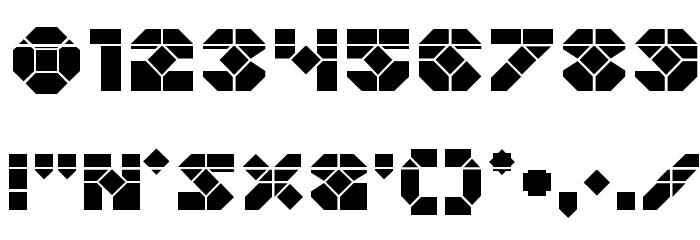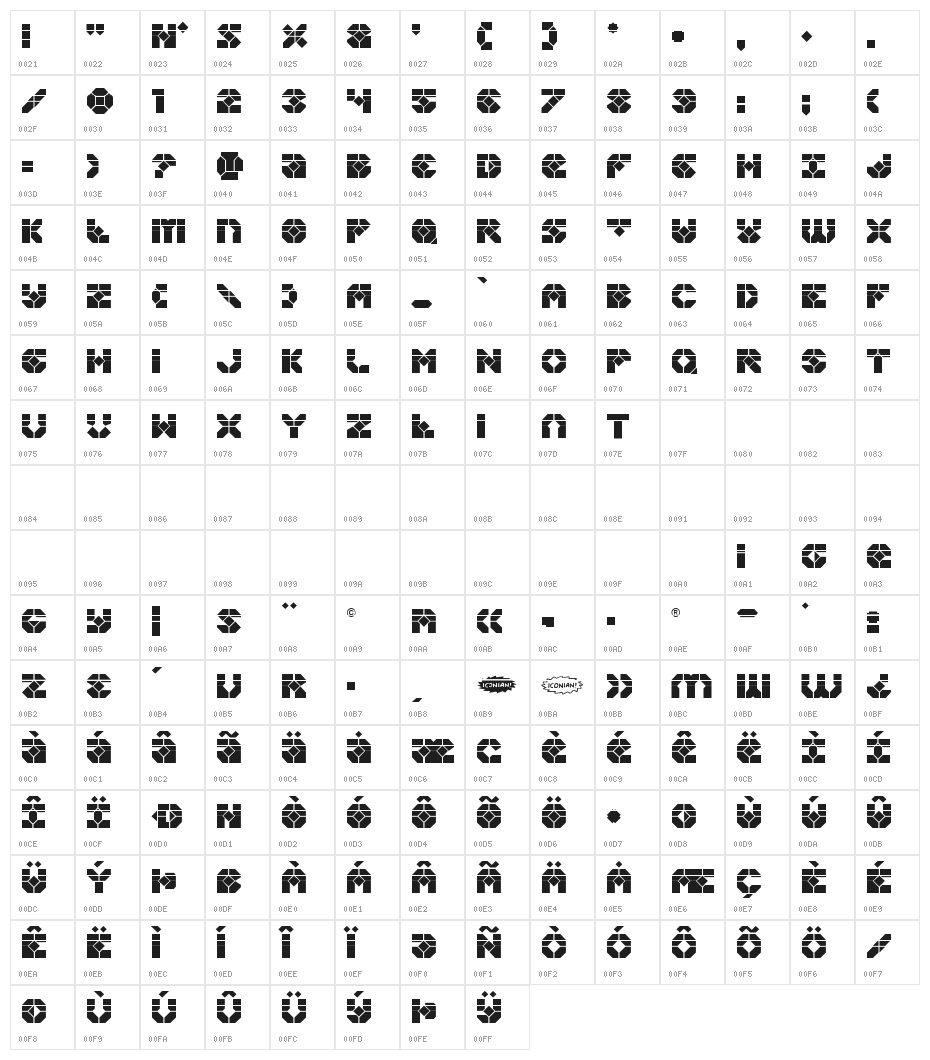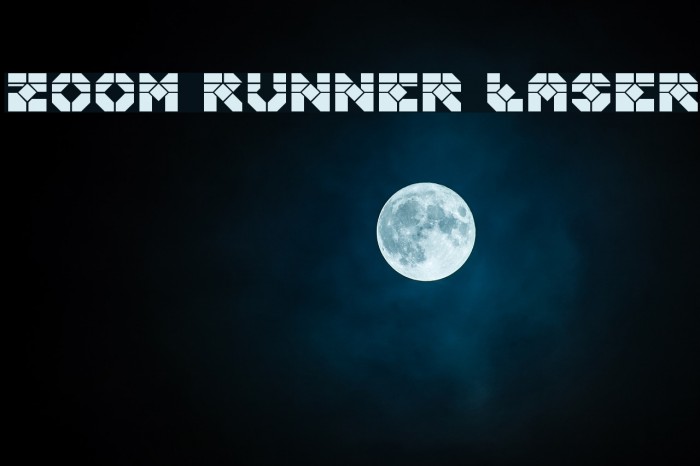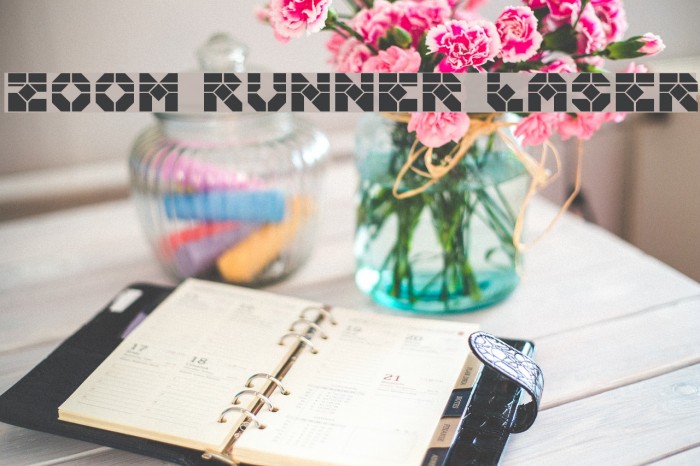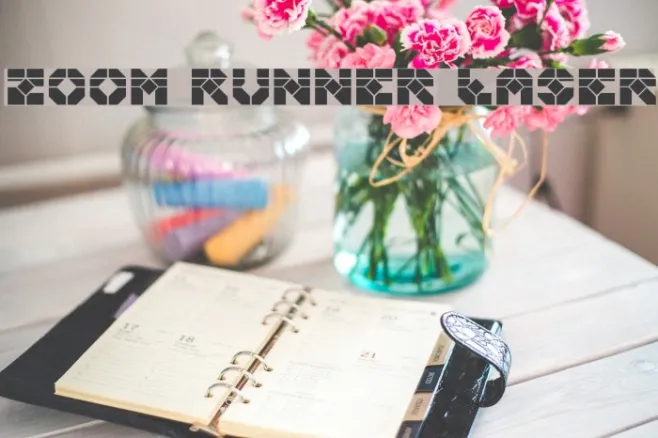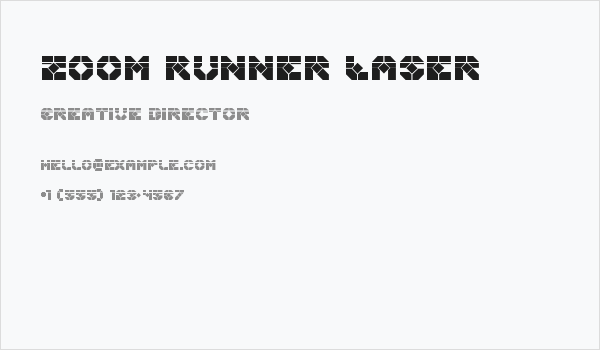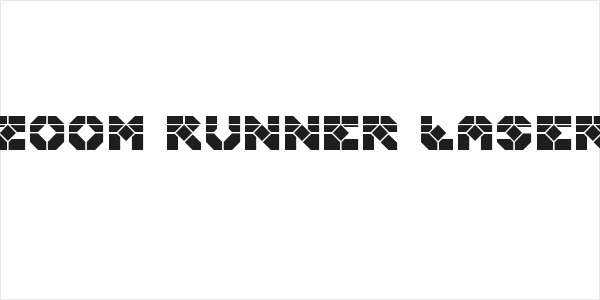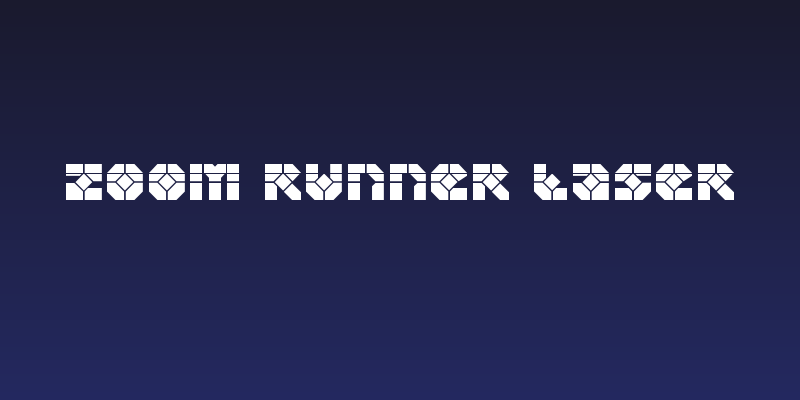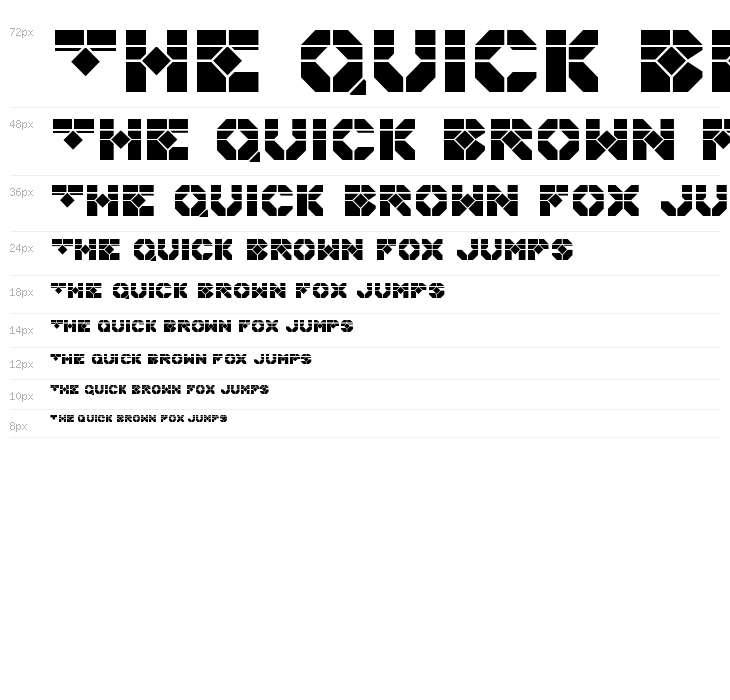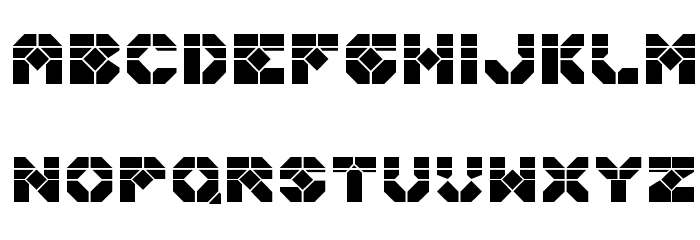
Zoom Runner Laser Font
Zoom Runner Laser Description
This font features a geometric and futuristic design, characterized by bold, block-like shapes that form each letter and number. The style is reminiscent of digital or sci-fi themes, with a strong emphasis on angular and modular elements. Each character is constructed from a series of interconnected shapes, creating a cohesive and visually striking appearance. The font is highly stylized, making it suitable for projects that require a modern and edgy aesthetic. The uniformity in design across uppercase, lowercase, and numerals ensures consistency, while the special characters maintain the same geometric theme.
| Proposed Projects | Ideal for sci-fi themed posters, video game titles, tech branding, and digital art projects. |